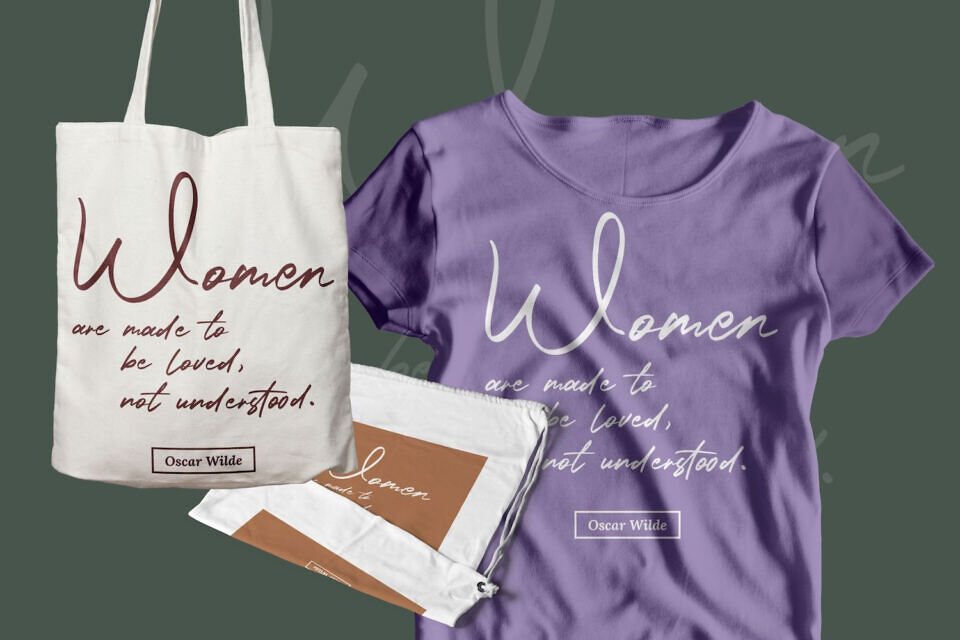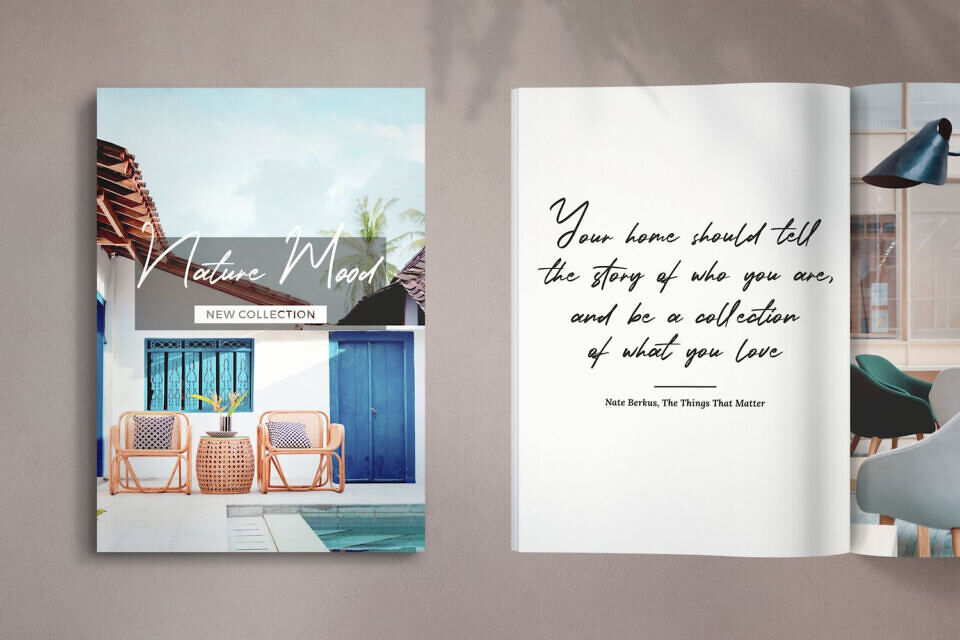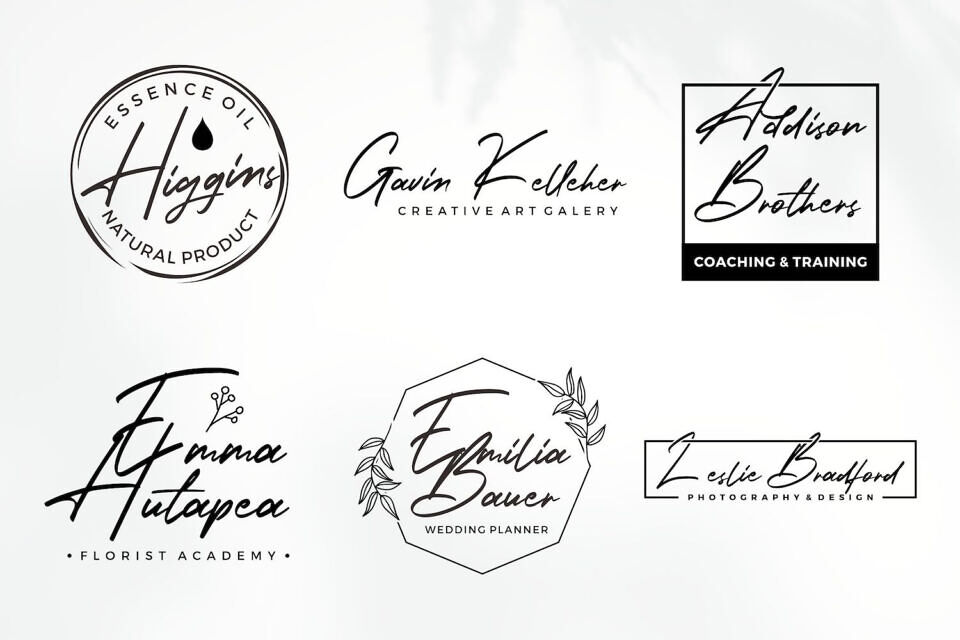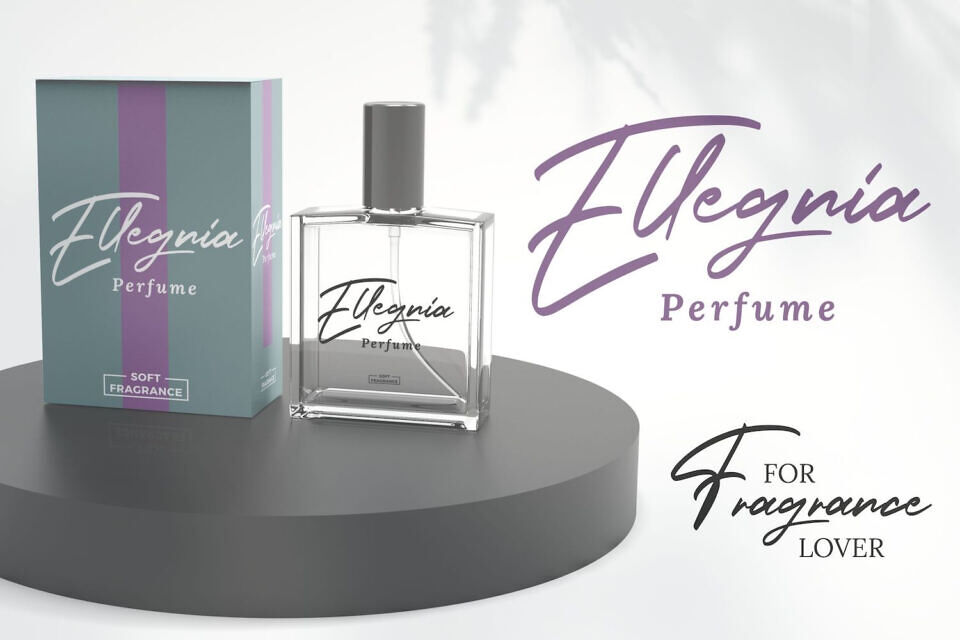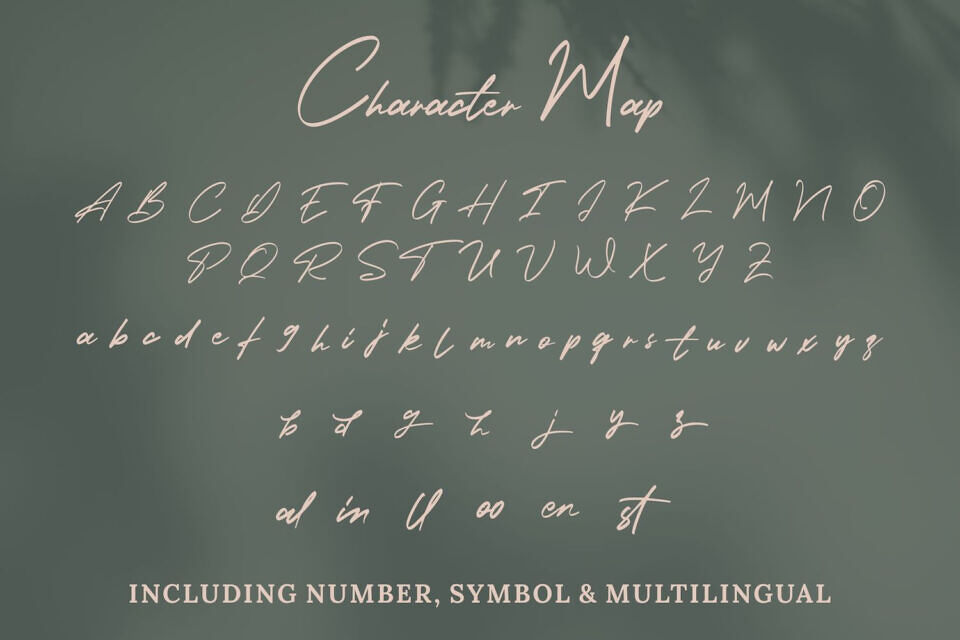
Holland Gateway Font
Holland Gateway is a Modern Classy and Elegant Script Font with Handwritten Style. The Holland Gateway font was created with authentic handwritting pen. This font is perfect for fashion brand, wedding invitation, business card, logo brand, signature, and then calligraphy.